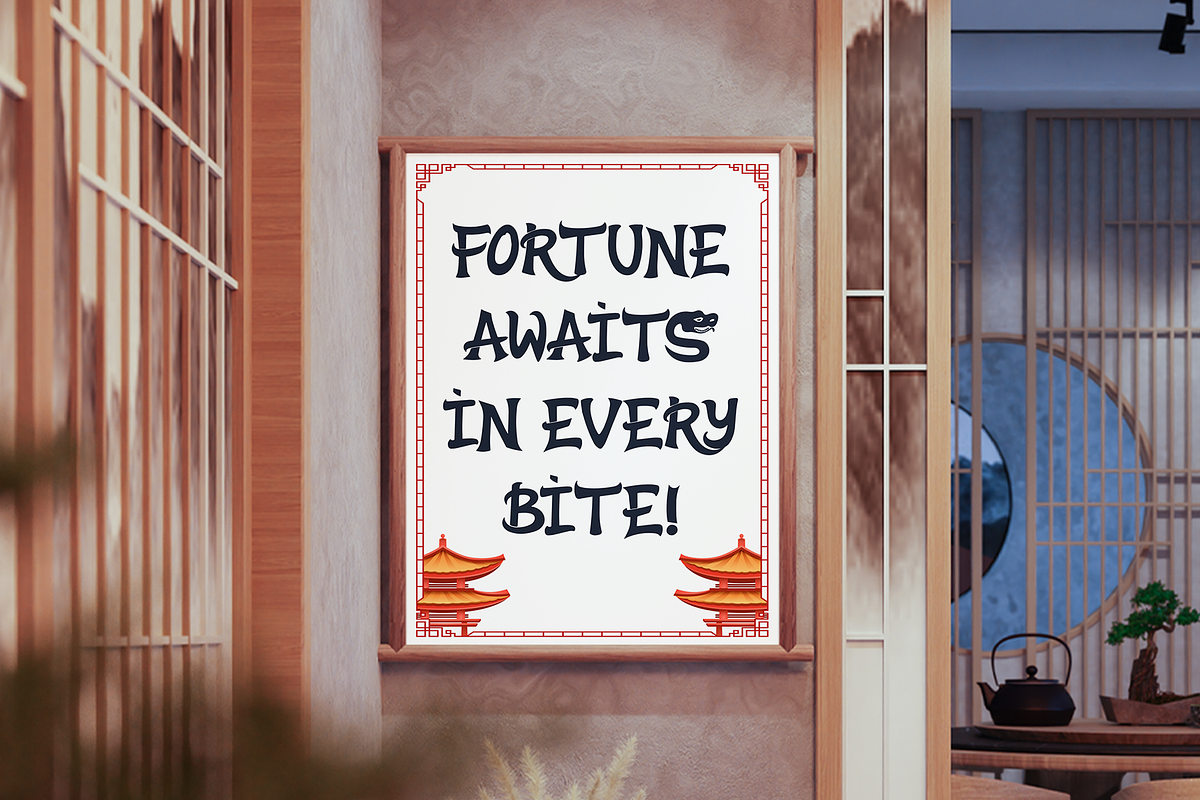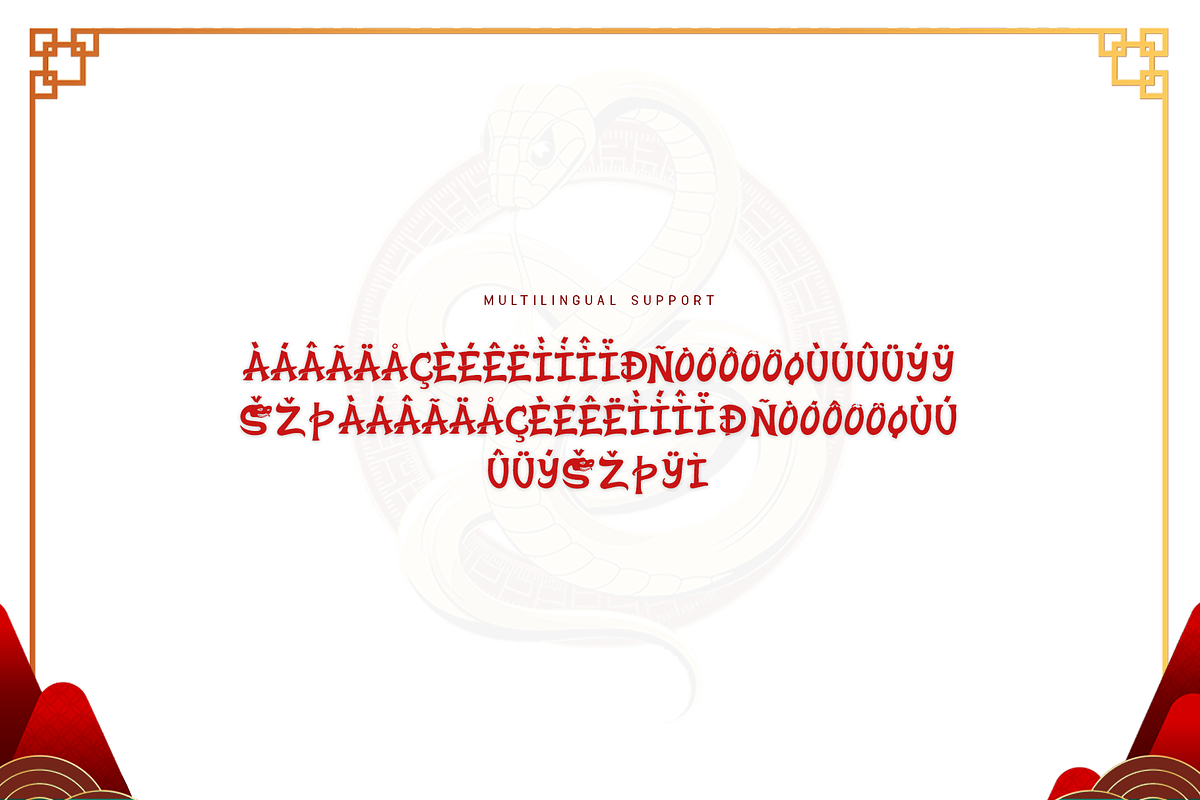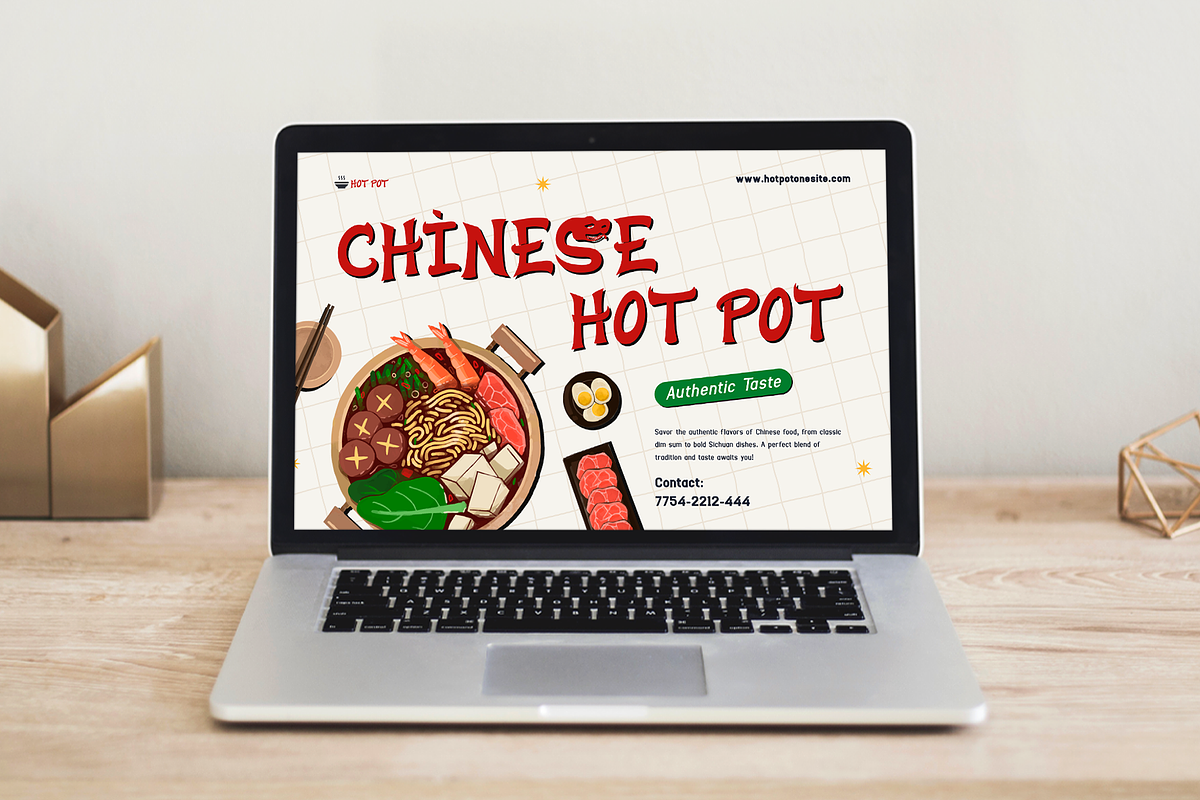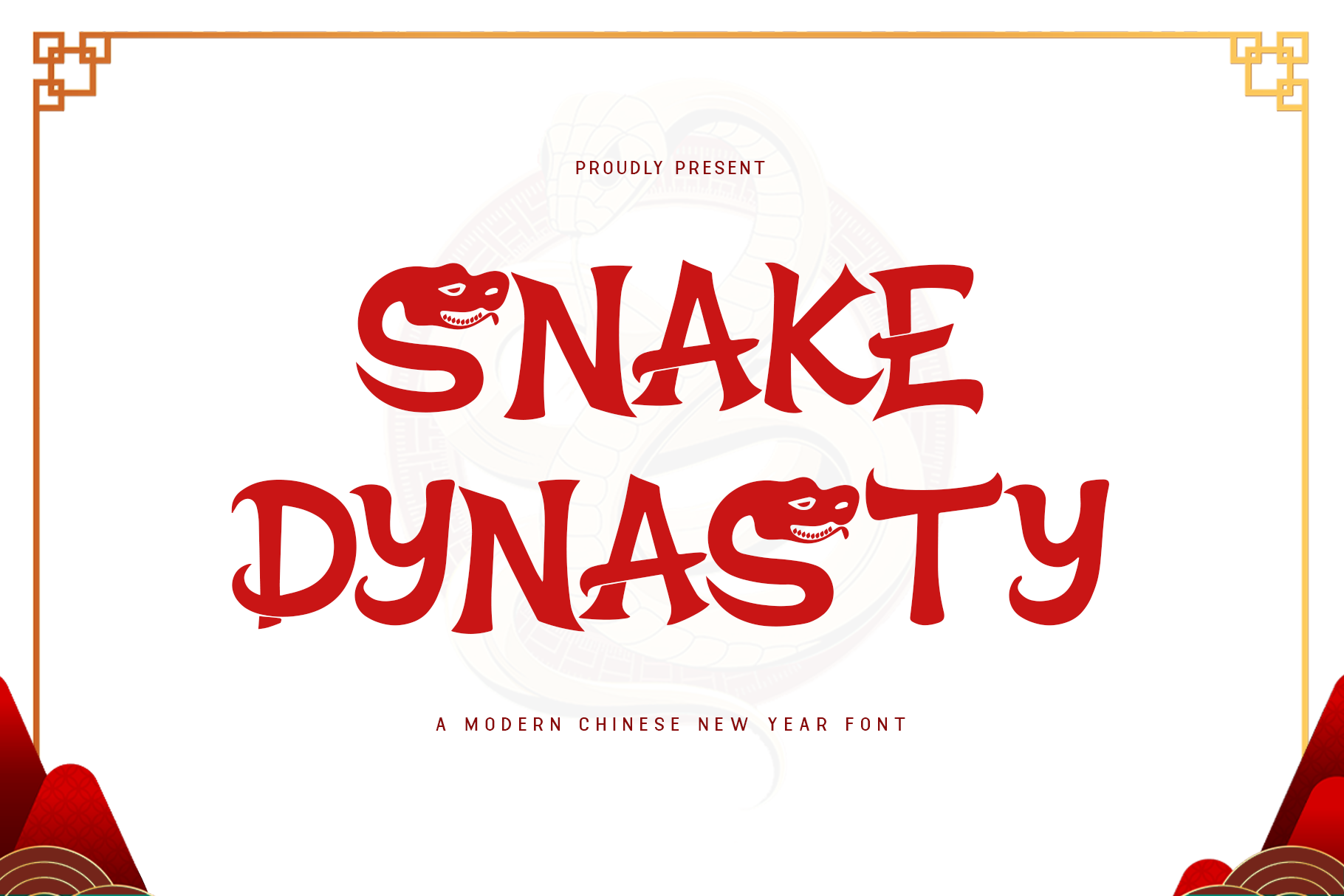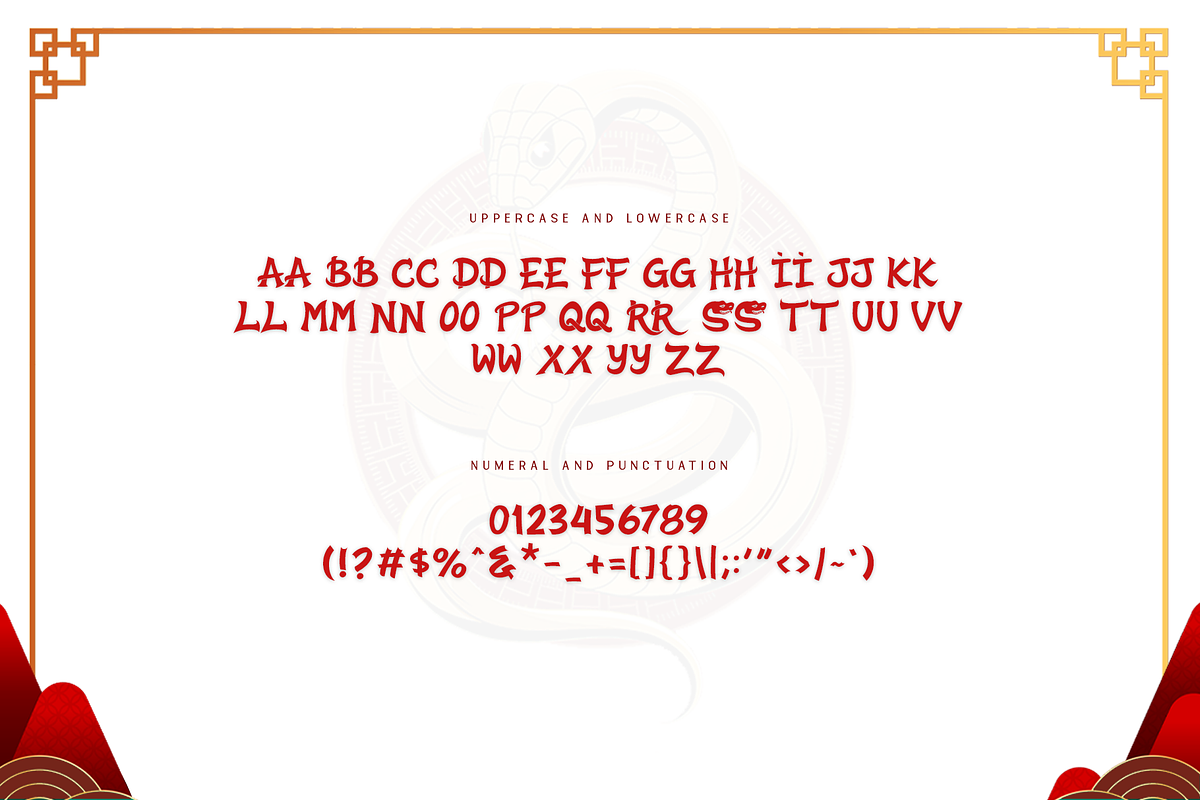
Snake Dynasty - Modern Chinese Font
Snake Dynasty - A Modern Chinese New Year Font
Unveil the majesty of the snake with Snake Dynasty, a modern font inspired by the royal symbolism of the serpent in Chinese culture. This typeface combines sophisticated, serpentine shapes with a regal touch, making it perfect for Chinese New Year designs that demand elegance and power.
The bold yet graceful curves of Snake Dynasty symbolize strength, wisdom, and prosperity, making it ideal for event branding, promotional materials, and invitations. Whether you're designing for a luxury brand or a festive celebration, this font commands attention with its unique, impactful design.
With multilingual support and a full character set, Snake Dynasty brings cultural depth and modern flair to your designs. This font is the perfect way to add a royal touch to your Chinese New Year projects.